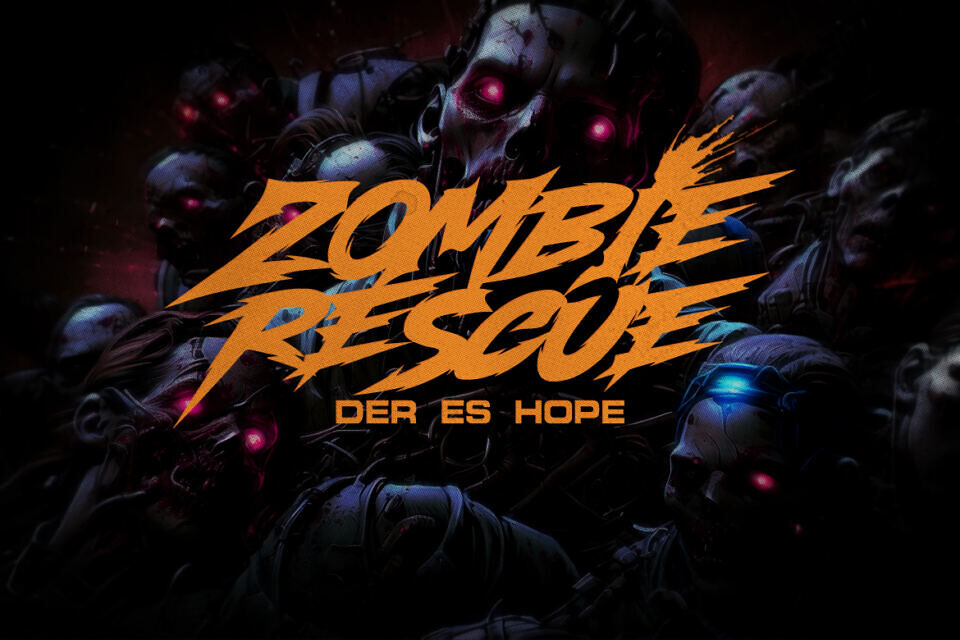
Modern Thrash Font
Modern Thrash by The Branded Quotes is an intense, high-energy typeface categorized under the horror genre. Designed to deliver a thrilling, hardcore aesthetic, it captures the gritty essence craved by metalheads, graphic illustrators, and video editors.
Available in both standard and slanted variations, this edgy font injects an aggressive, dynamic vibe into your work. It is ideal for impactful posters, album covers, and bold digital designs that demand a loud, unapologetic visual statement.